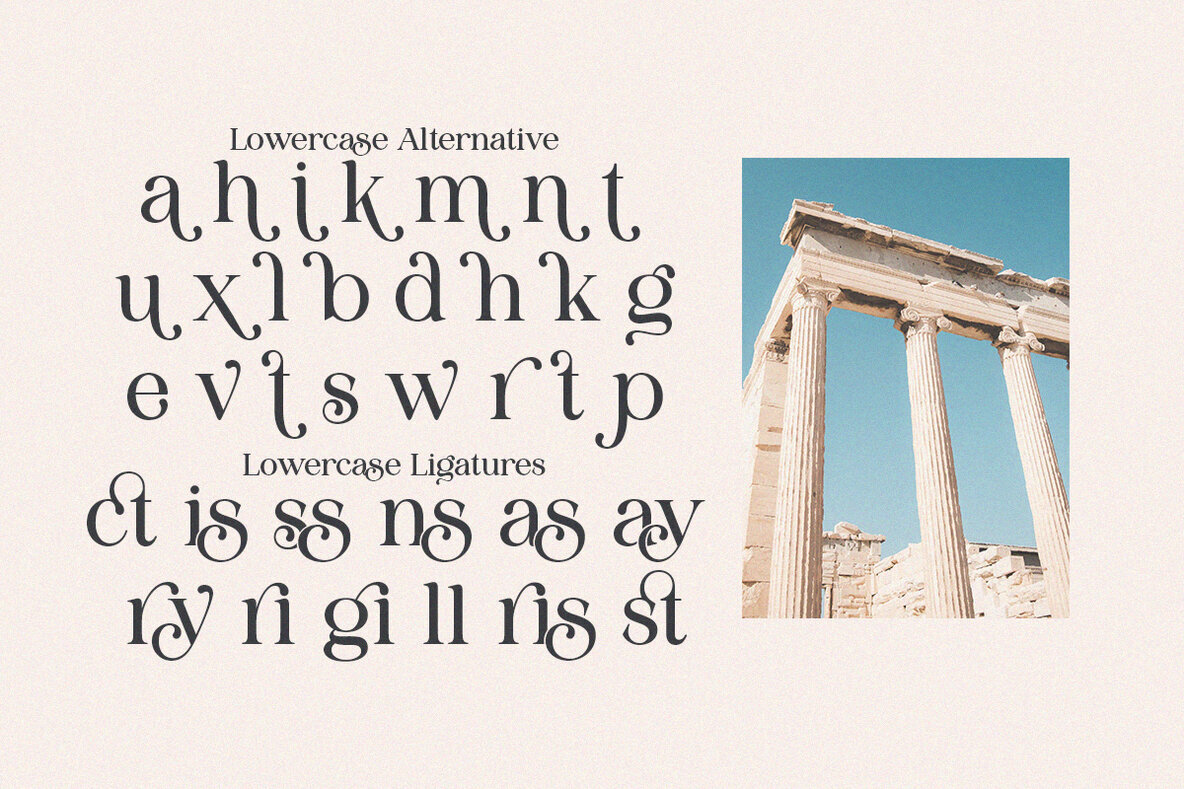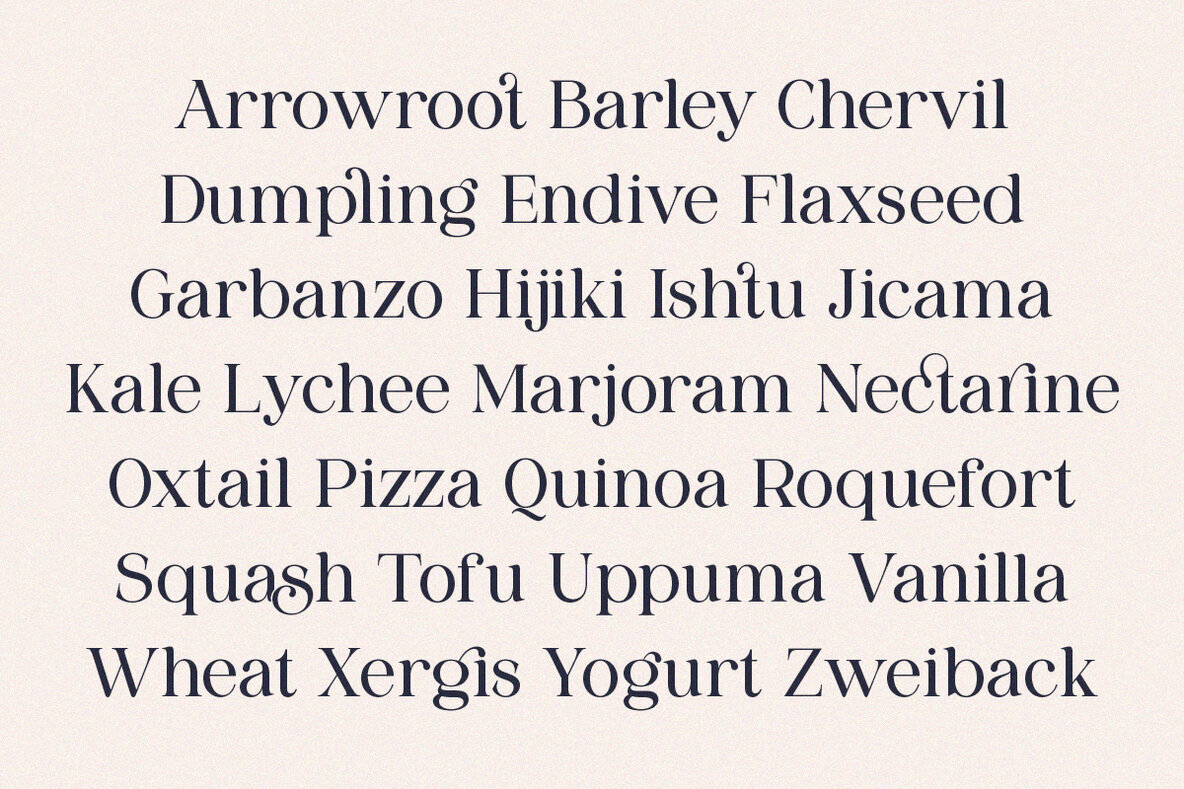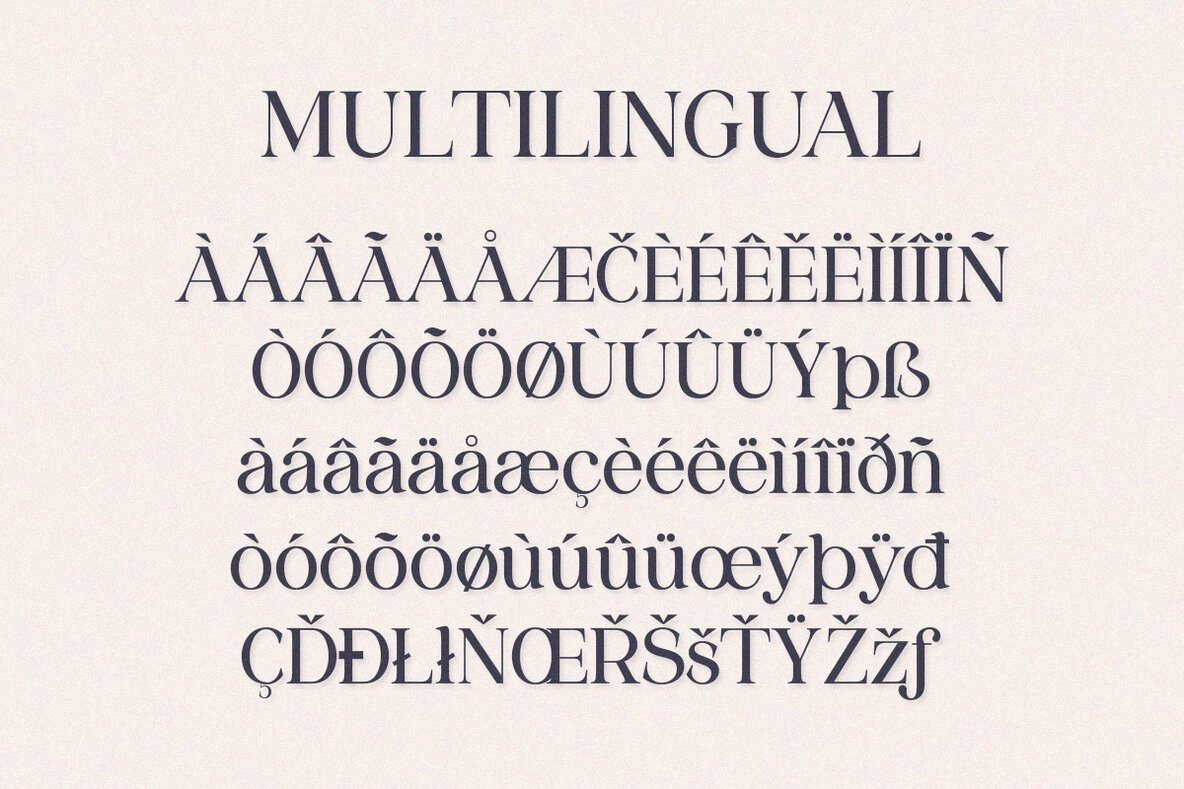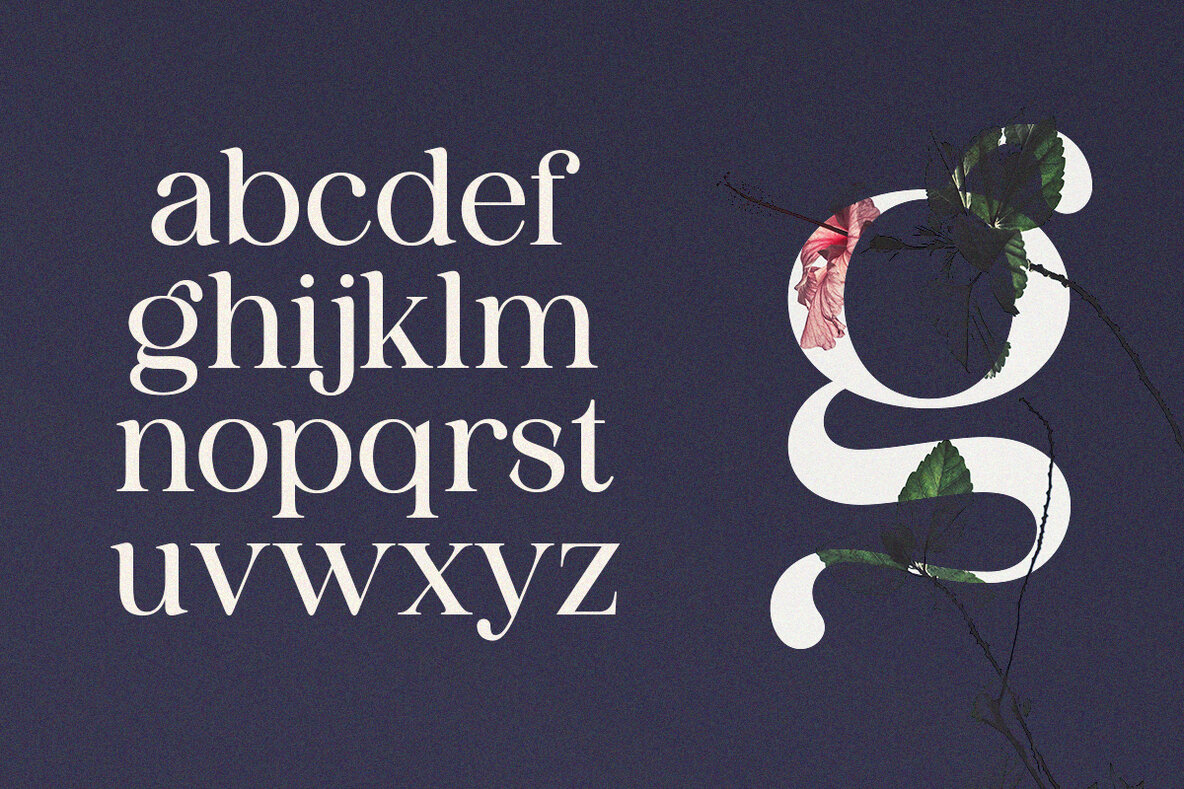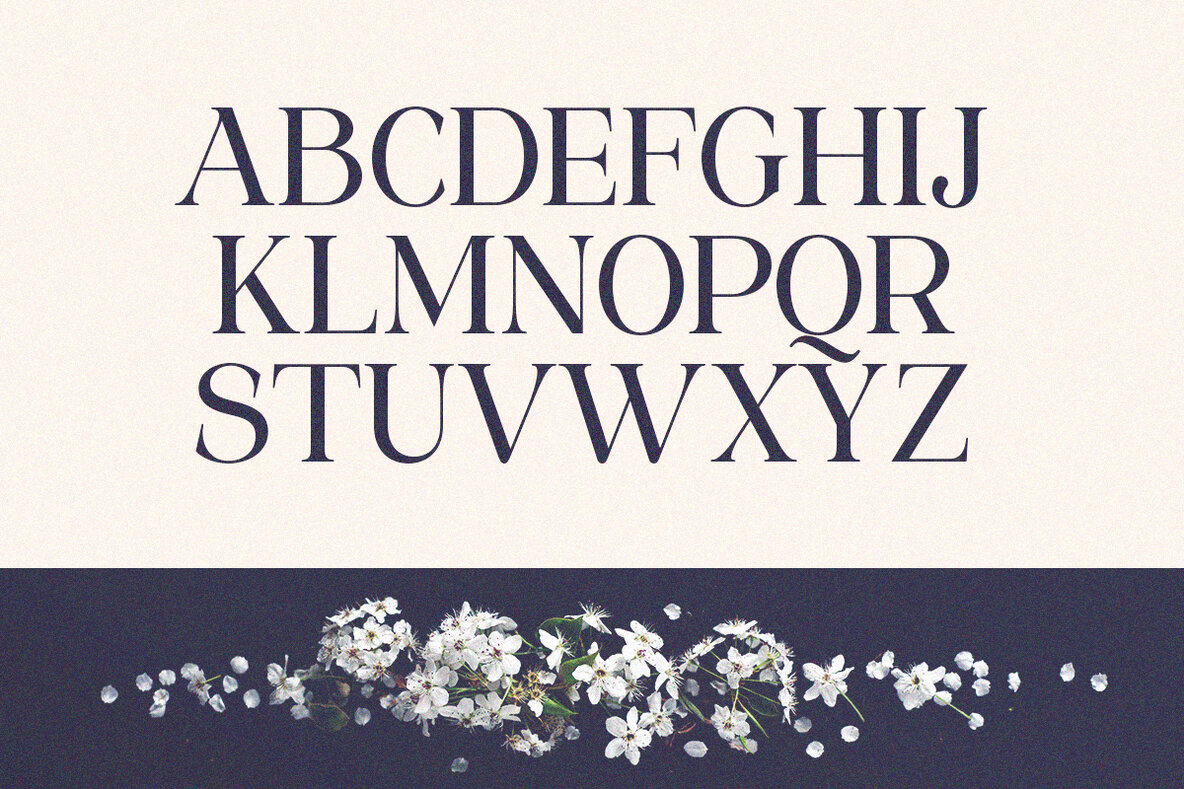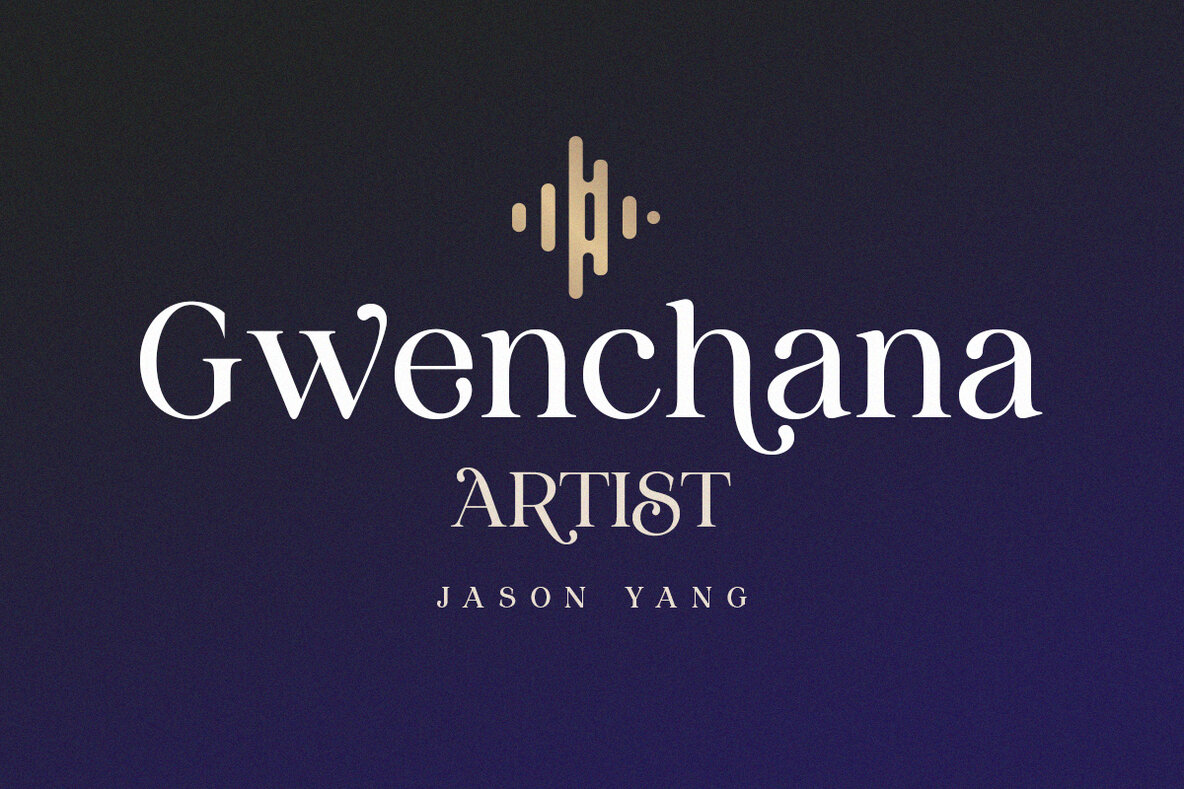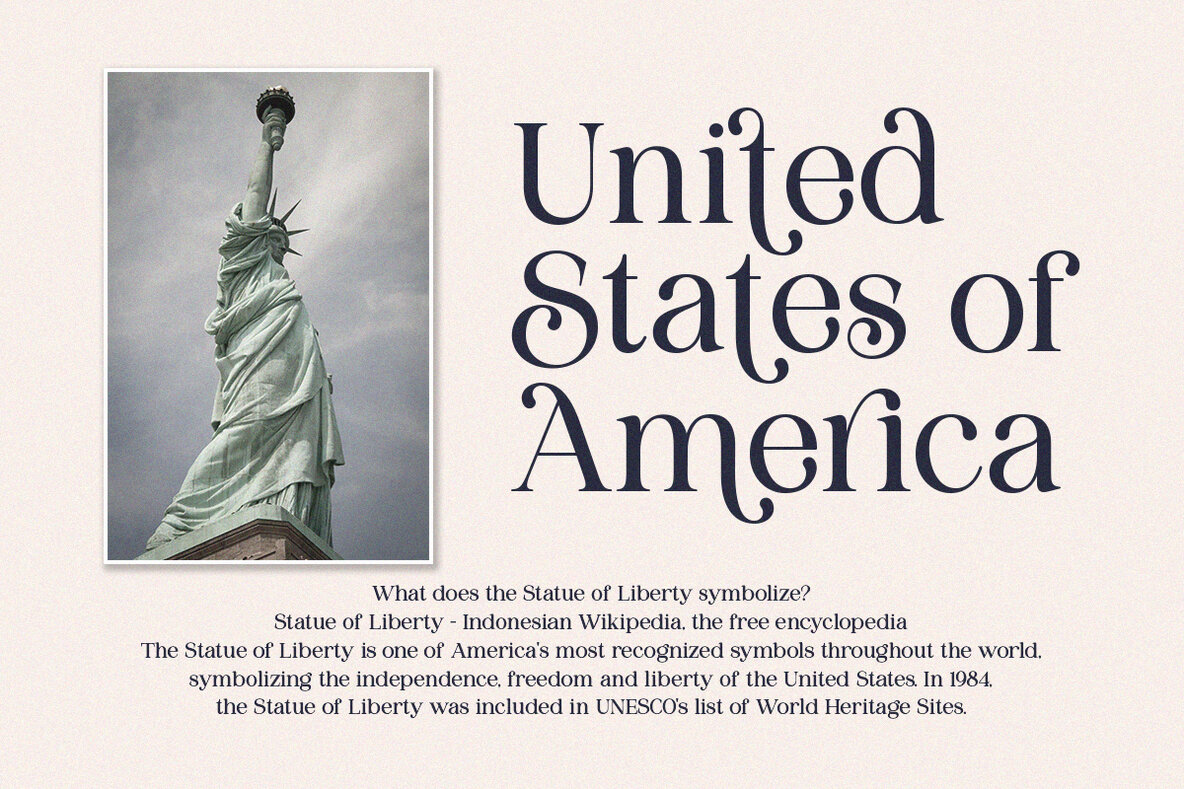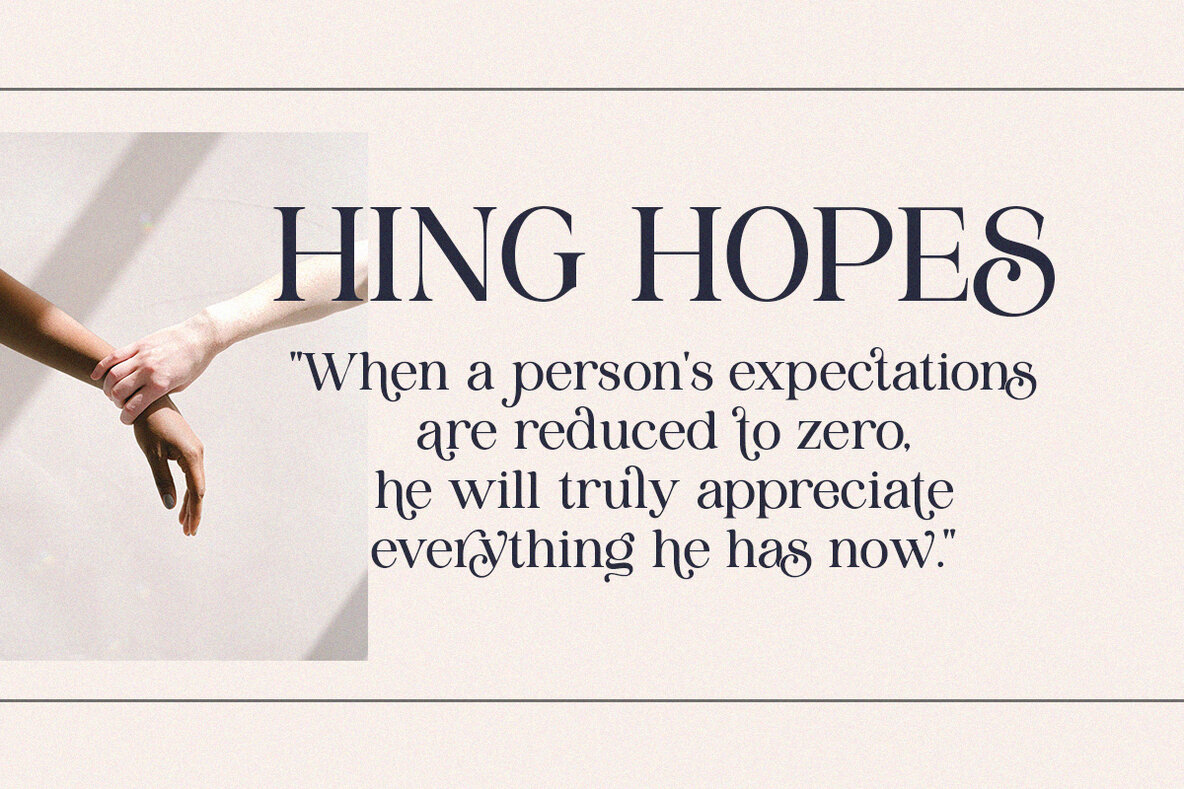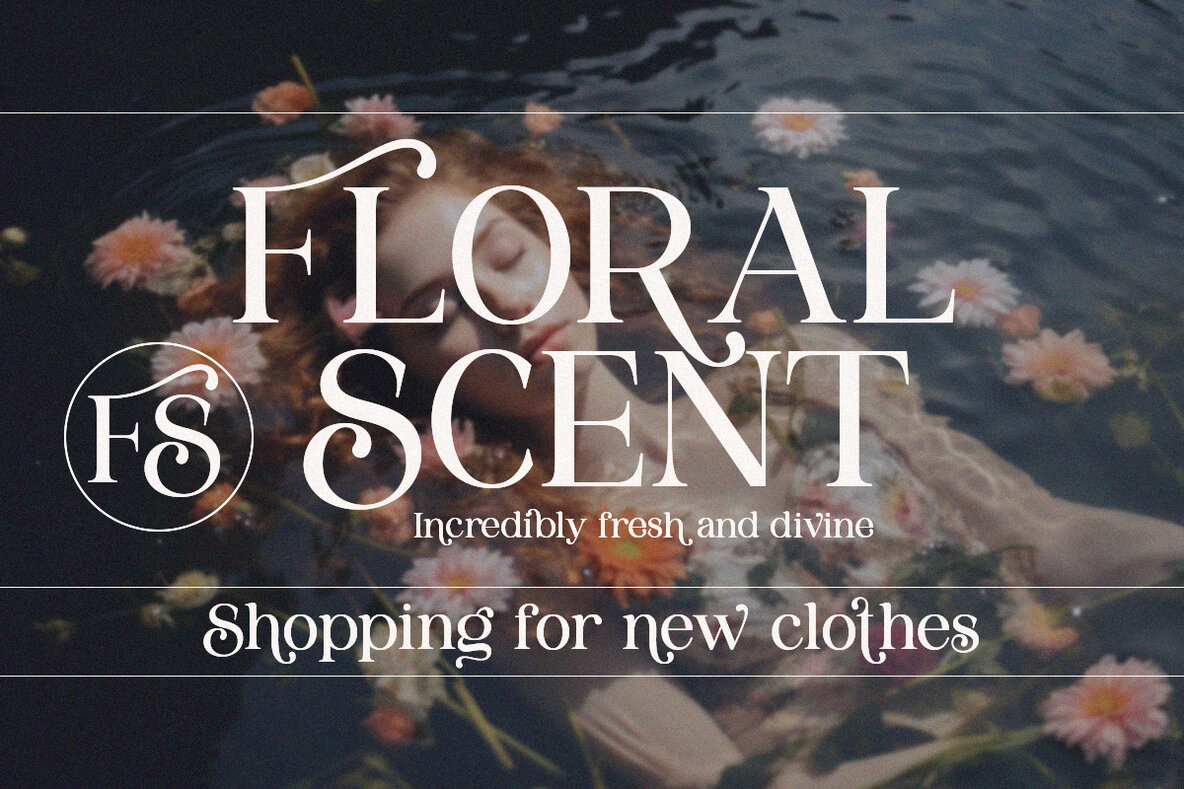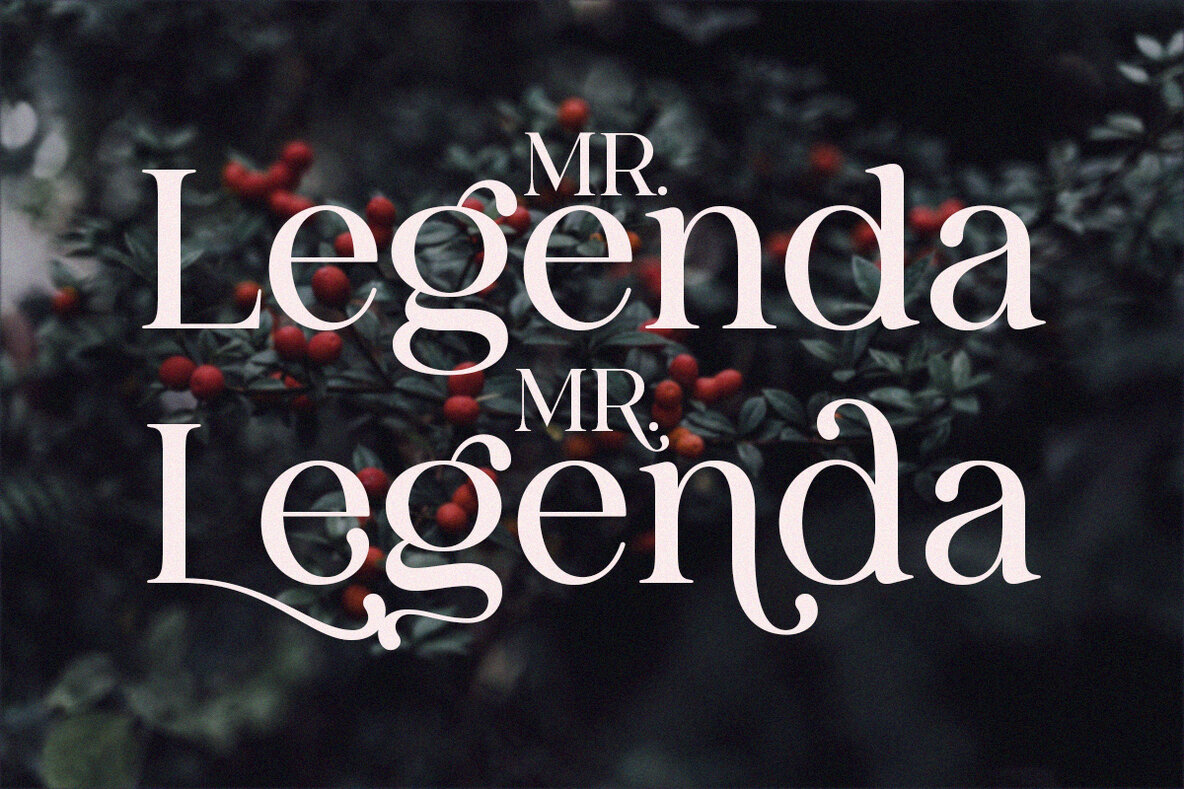
Sangect Font
Sangect Display Regular
The Sangect Display typeface by Pista Mova offers a fresh, modern twist on a classic style. This typeface combines the traditional elements of serif fonts with dramatic boldness, featuring strong contrasts in stroke width and soft edges. The elegant appearance of Sangect Display is ideal for creating striking, memorable headlines. Please note that accents are available in both uppercase and lowercase. The package includes files compatible with most design software. If you have any questions or encounter technical issues, feel free to send a message. We are here to assist you!Sangect Display: A Modern Classic Typeface